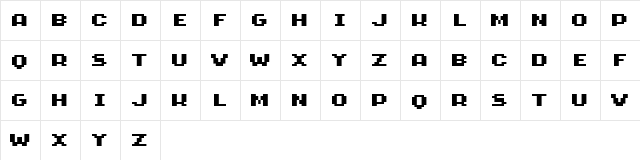
GeneticaFlashBold Regular Font Preview
GeneticaFlashBold Regular
GeneticaFlashBold Regular Font Details
Design Context for GeneticaFlashBold Typeface
GeneticaFlashBold takes a measured approach to typography — its balanced proportions and neutral character make it a reliable workhorse for both digital and print work. Its bold stroke weight gives it real presence on the page.
Pro Tip: Use GeneticaFlashBold in both headline and body roles to test its range before committing to a single application.